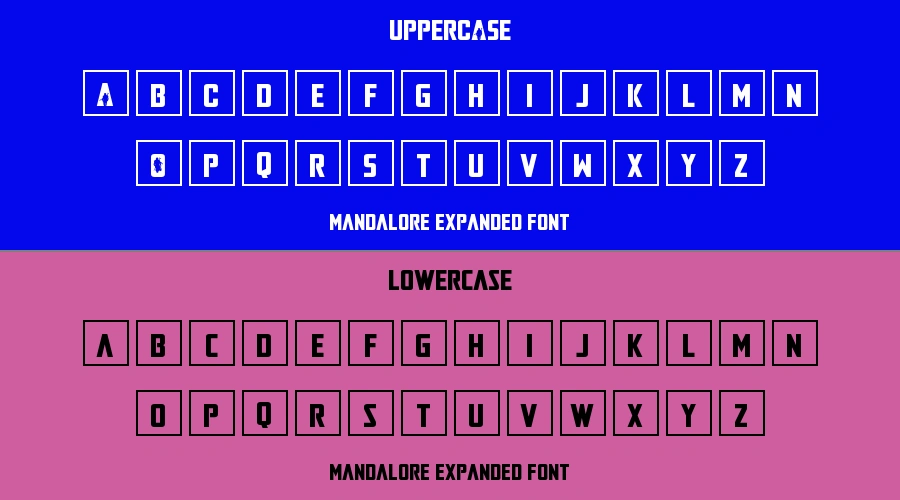
About Mandalore Expanded Font
Mandalore Expanded Font embodies typographic excellence through its masterful combination of decorative alternates and professional reliability. Created for ceremonial invitations, this typeface delivers exceptional legibility and cultural authenticity across all applications. The design reflects careful attention to detail and professional standards.
Advanced capabilities include distinctive organic forms and versatile technical characters, giving designers creative control. When used in creative titles, Mandalore Expanded Font exhibits remarkable print fidelity. The harmonious balance between tail length and cultural context sets this typeface apart.